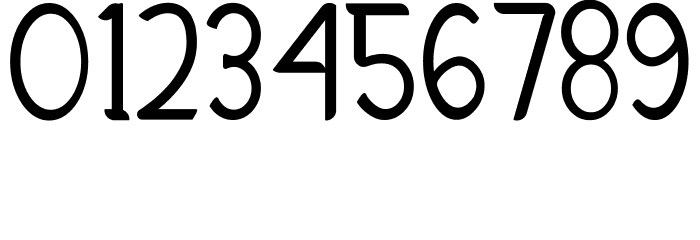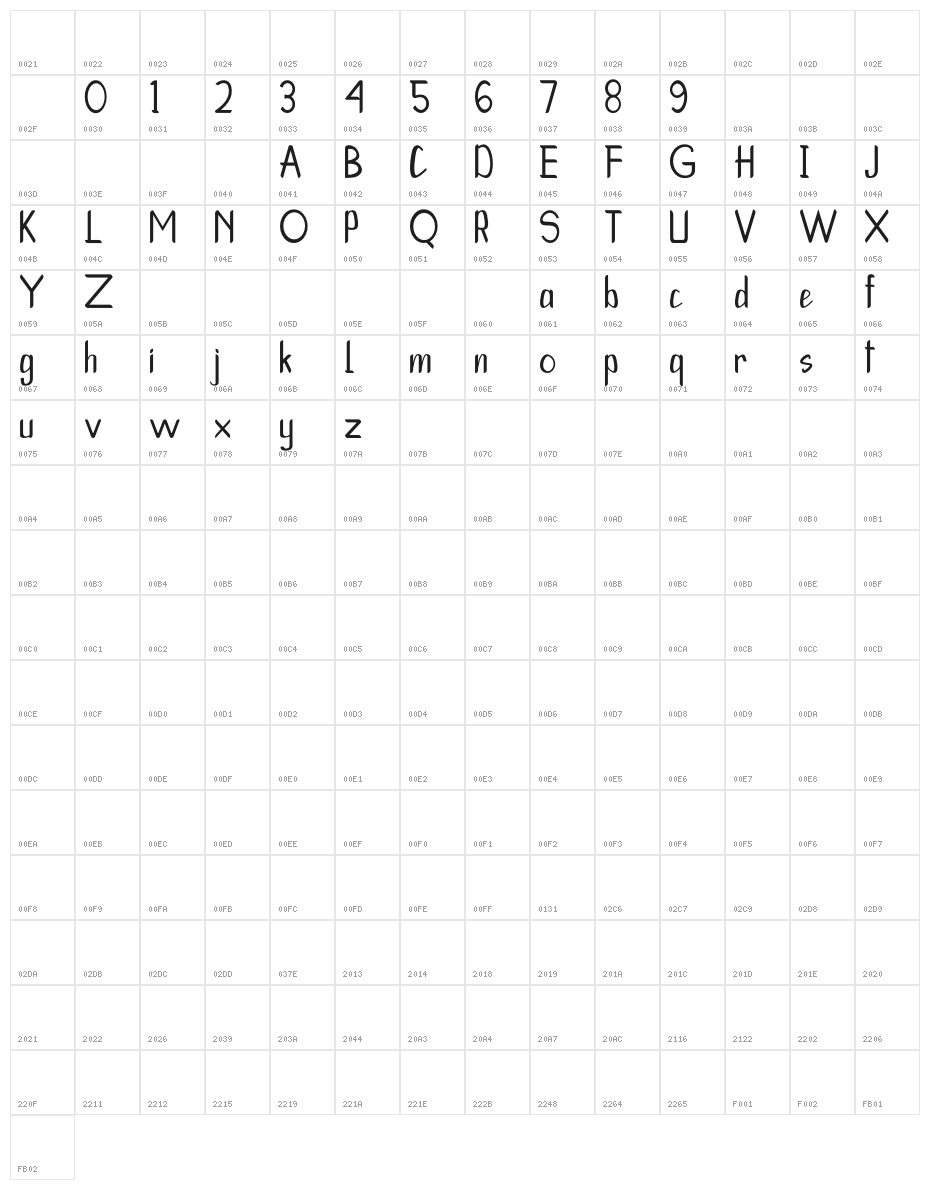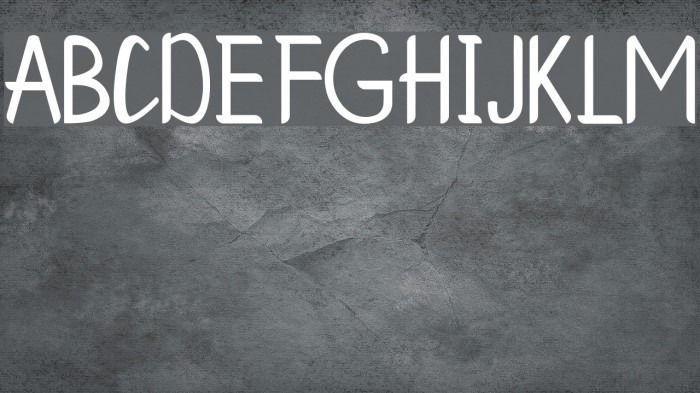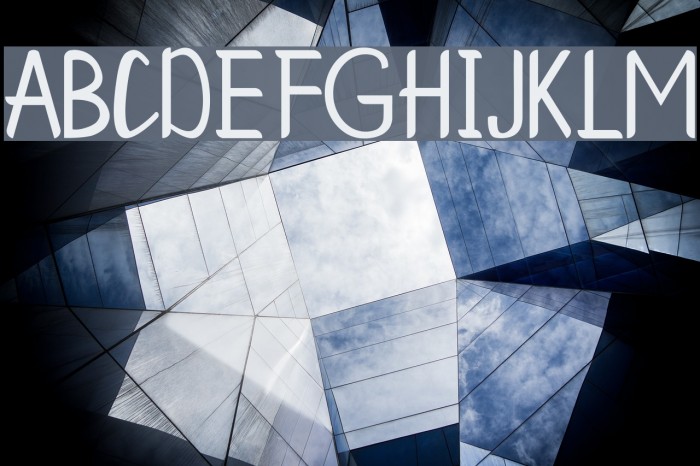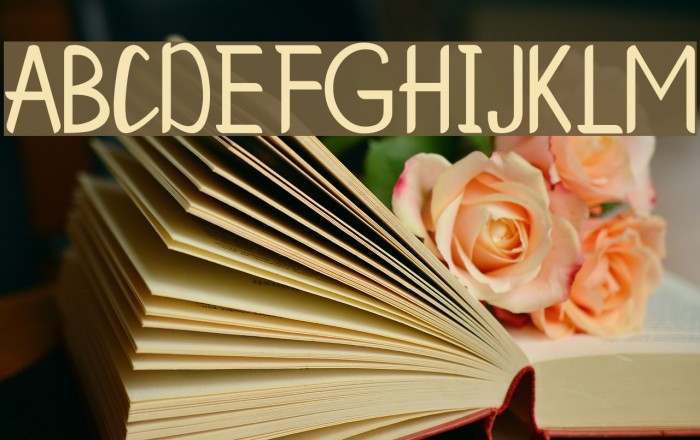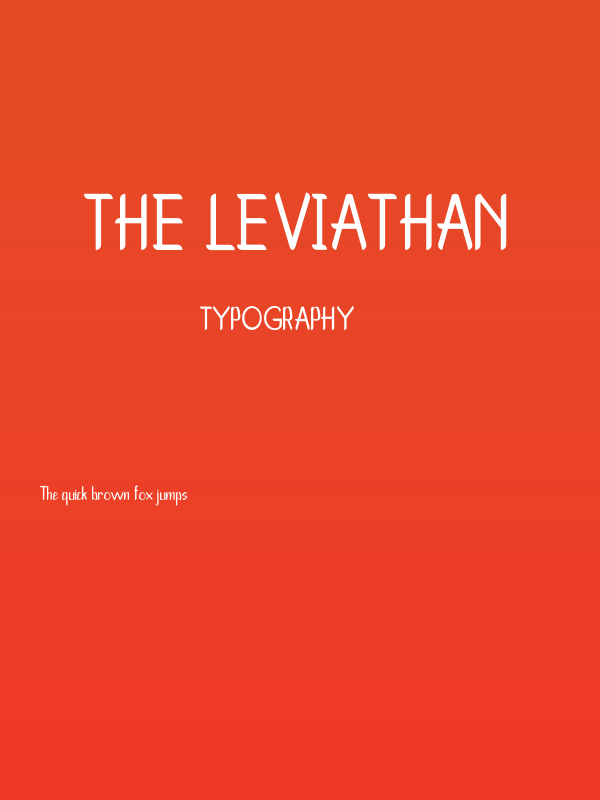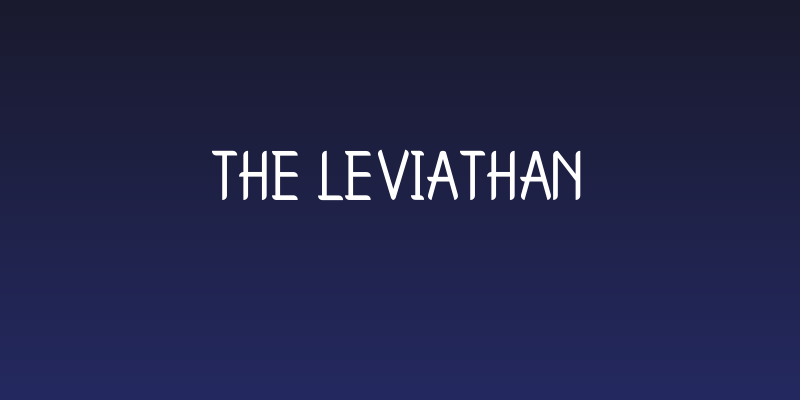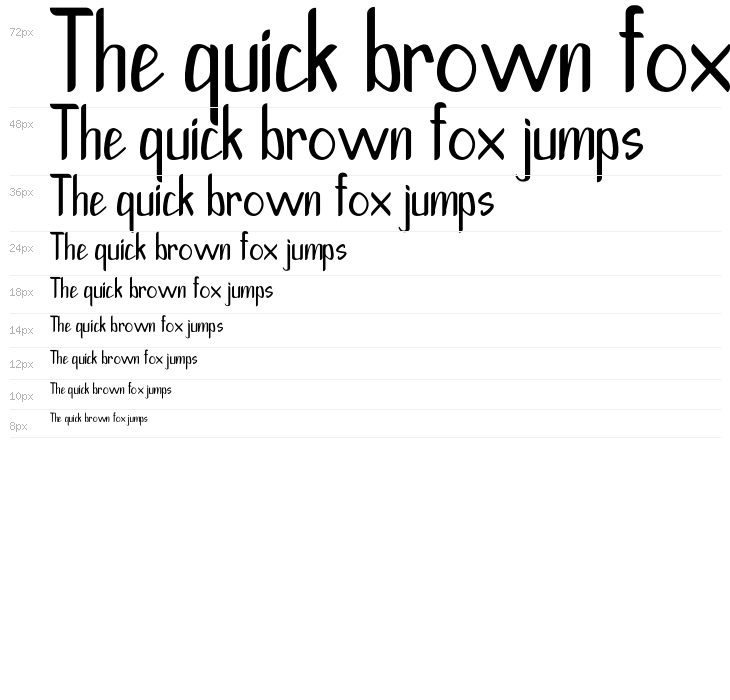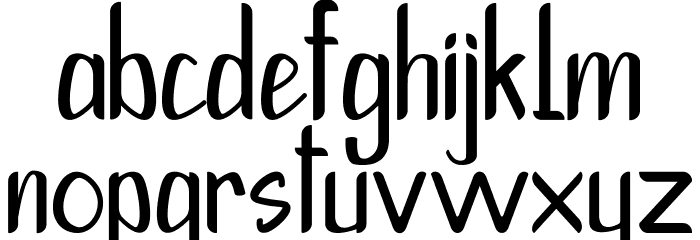
The Leviathan Font
The Leviathan Description
This font features a playful and whimsical design, characterized by its rounded and slightly elongated letterforms. The uppercase letters maintain a consistent height, while the lowercase letters exhibit a charming irregularity that adds to its unique appeal. The numbers are bold and clear, ensuring readability. Special characters are creatively integrated, maintaining the font's overall playful aesthetic. The strokes are uniform in thickness, contributing to a cohesive look across all characters. This font is ideal for projects that require a fun and approachable style.
| Proposed Projects | This font is perfect for children's books, playful branding, greeting cards, and creative posters. |